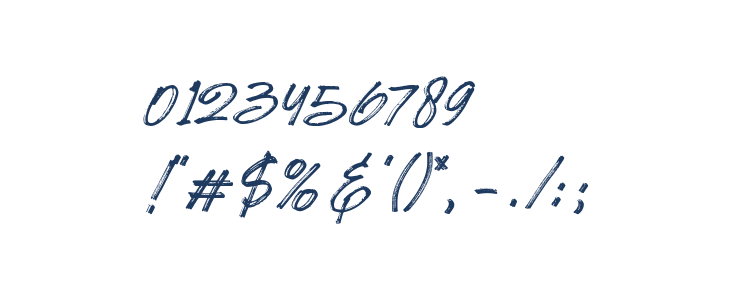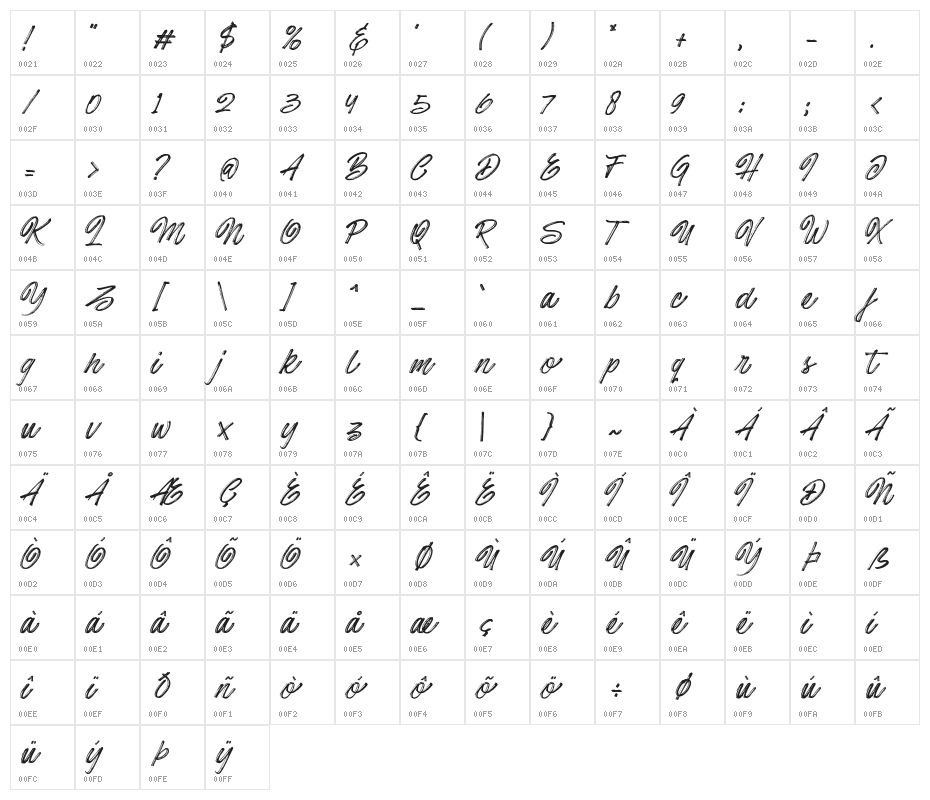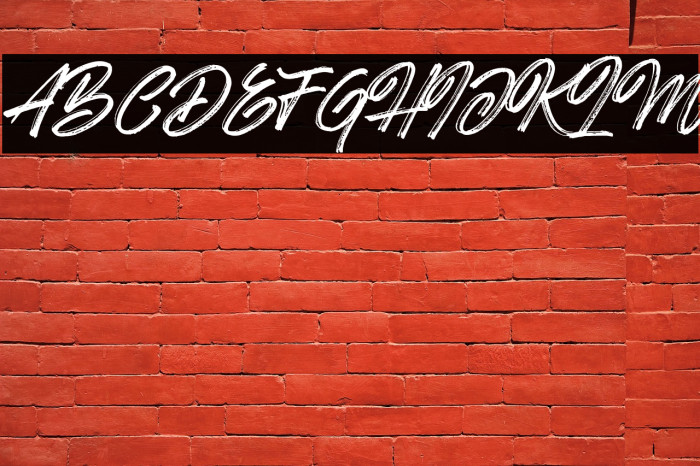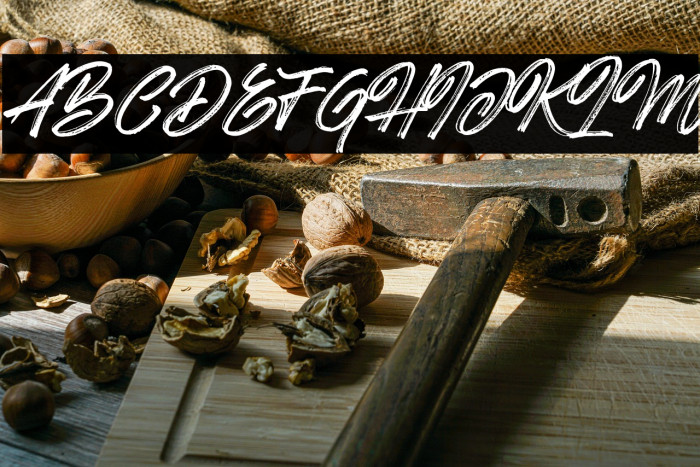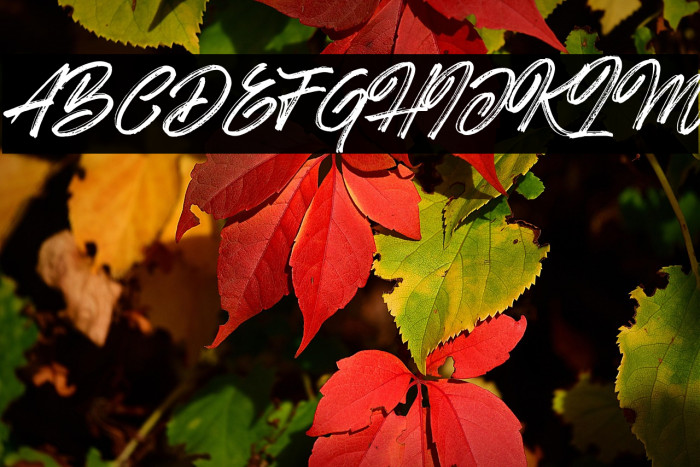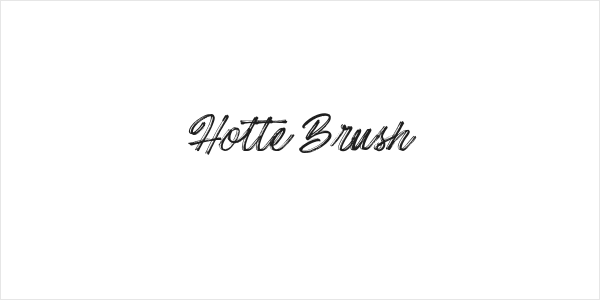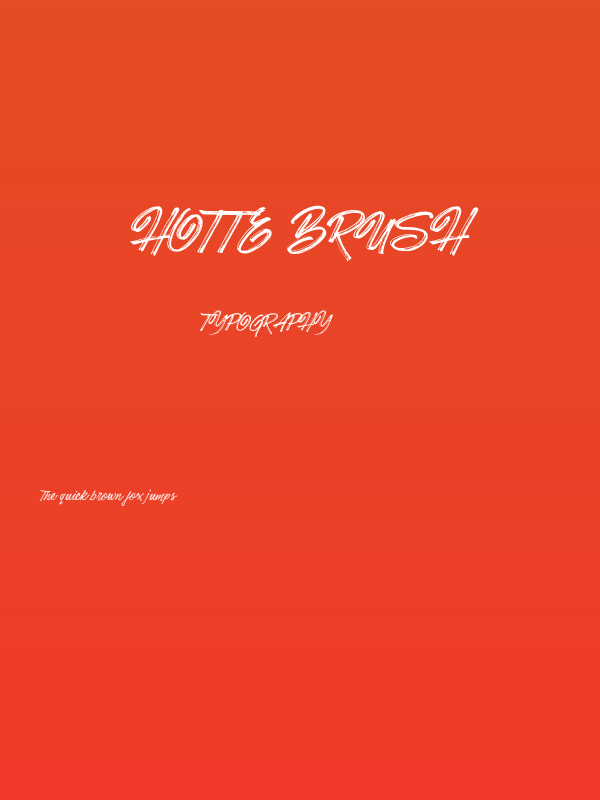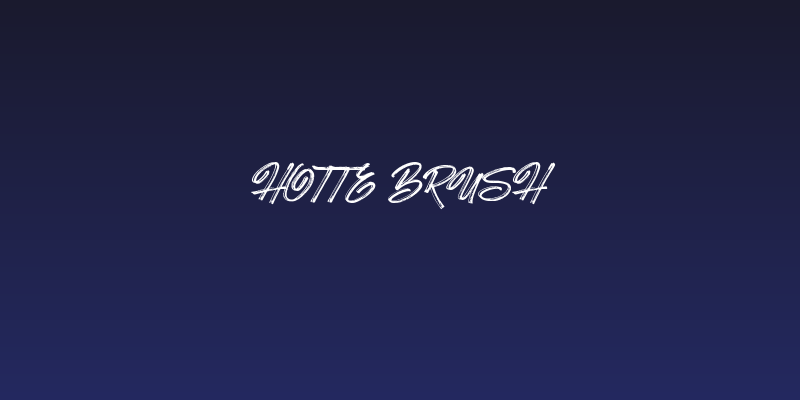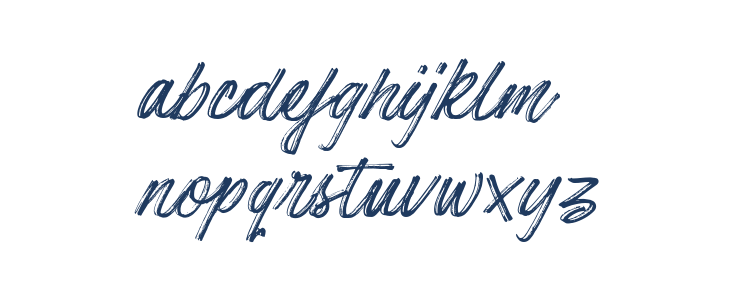
Hotte Brush Font
Hotte Brush Description
This font features a dynamic and energetic brush script style, characterized by its bold, sweeping strokes and a sense of fluidity. The letters are connected in a cursive manner, giving it a handwritten appearance that is both artistic and expressive. The uppercase letters are particularly striking, with exaggerated curves and flourishes that add a sense of movement and flair. The lowercase letters maintain this fluidity, ensuring consistency across the typeface. Numbers and special characters are designed with the same brush-like quality, making them visually cohesive with the alphabet. This font is ideal for projects that require a personal touch or a creative, informal vibe.
| Proposed Projects | Ideal for branding, packaging, invitations, and any design requiring a personal, artistic touch. |